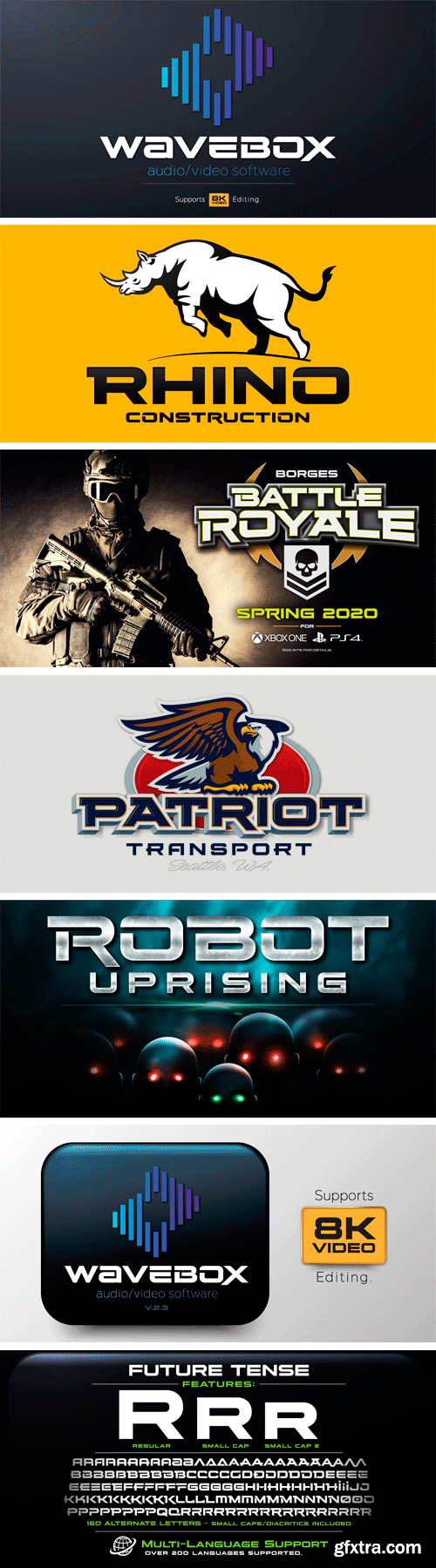
Future Tense is a modern type style that is perfect for logos, film, video games, packaging, signs, and more. Charles Borges de Oliveira & Vassil Kateliev’s attention to letter forms insures extreme legibility without sacrificing this modern style. The 160 alternate letters will keep your designs looking fresh and different. A unique feature included in Future Tense is the small caps have their own set of small caps. This allows 3 different looks for each letter.